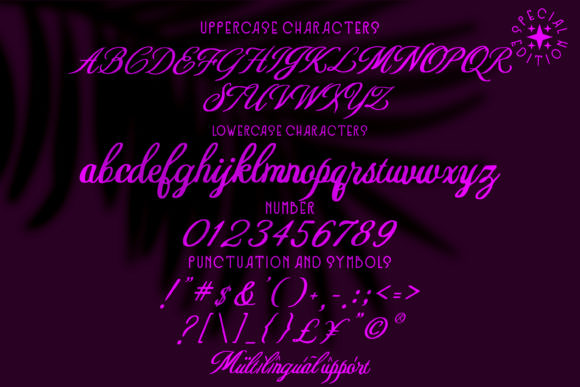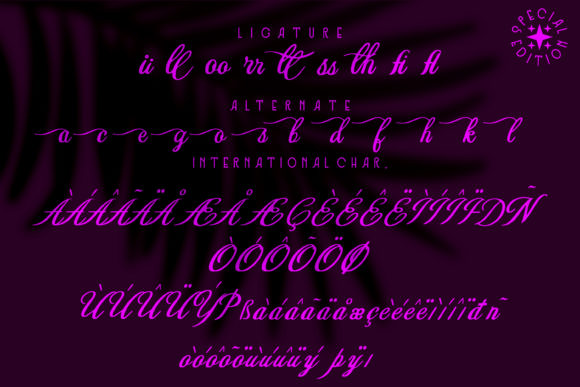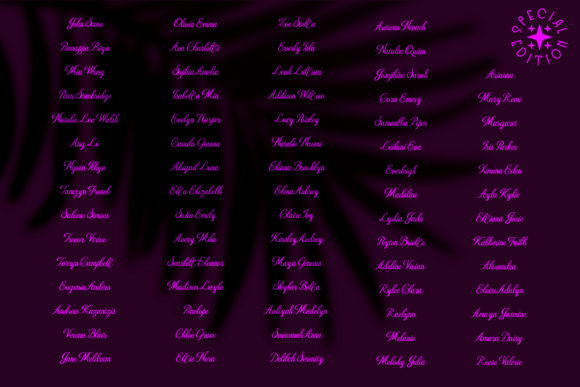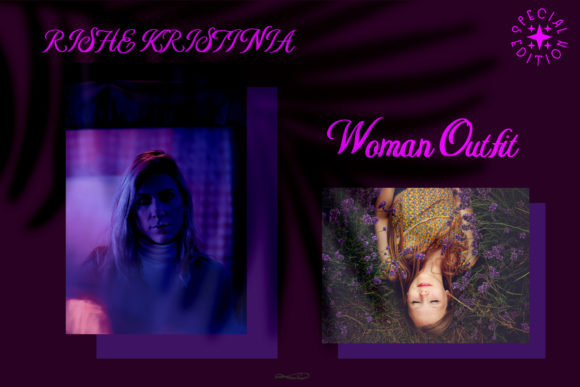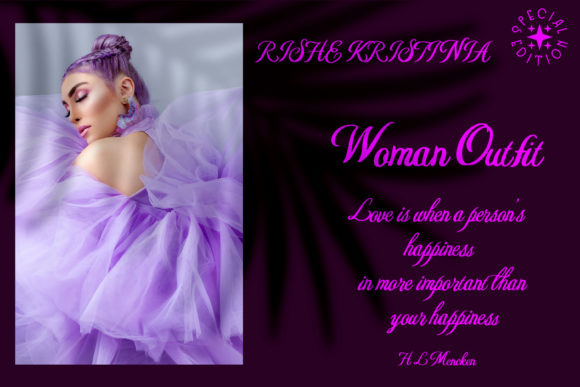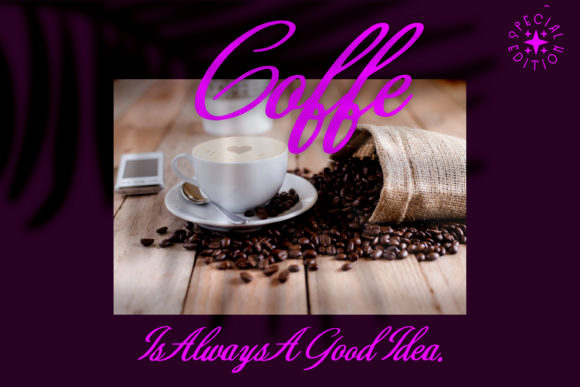
The Elusive Perfect Font: My Encounter with Anastasya Vella
Ah, the quest for the perfect font – a journey every designer, crafter, and creative hobbyist can relate to. I recall working on a branding project for a luxury homeware client, spending hours scrolling through font libraries, and yet, nothing seemed quite right. The project required a font that exuded elegance, sophistication, and a touch of whimsy. That’s when I stumbled upon Anastasya Vella, a beautiful handwritten font that instantly captured my attention.
An Honest Review of Anastasya Vella
- 💫 Elegant and luxurious feel, perfect for high-end projects
- ✅ Highly versatile, suitable for a wide range of applications (logos, branding, packaging, and more)
- 🎨 Beautifully crafted with attention to detail, giving it a premium look
- 🖌️ Supports OpenType features, allowing for creative exploration
While Anastasya Vella is an exceptional font, there are a few minor considerations to keep in mind:
- 🤔 May not be the best fit for very small font sizes or body text, as it shines brightest at larger sizes
The Story Behind Anastasya Vella
Anastasya Vella’s story begins with its designer, who aimed to create a font that embodied the essence of luxury and sophistication. Inspired by the beauty of handwritten scripts and the elegance of high-end branding, Anastasya Vella was crafted to bring a touch of premium style to any project.
Q: What type of projects is Anastasya Vella suitable for?
A: Anastasya Vella is versatile and can be used for a wide range of projects, including logos, branding, packaging, homeware designs, and more.
Q: Does Anastasya Vella support OpenType features?
A: Yes, Anastasya Vella supports OpenType features, allowing you to explore creative possibilities and add a touch of elegance to your designs.